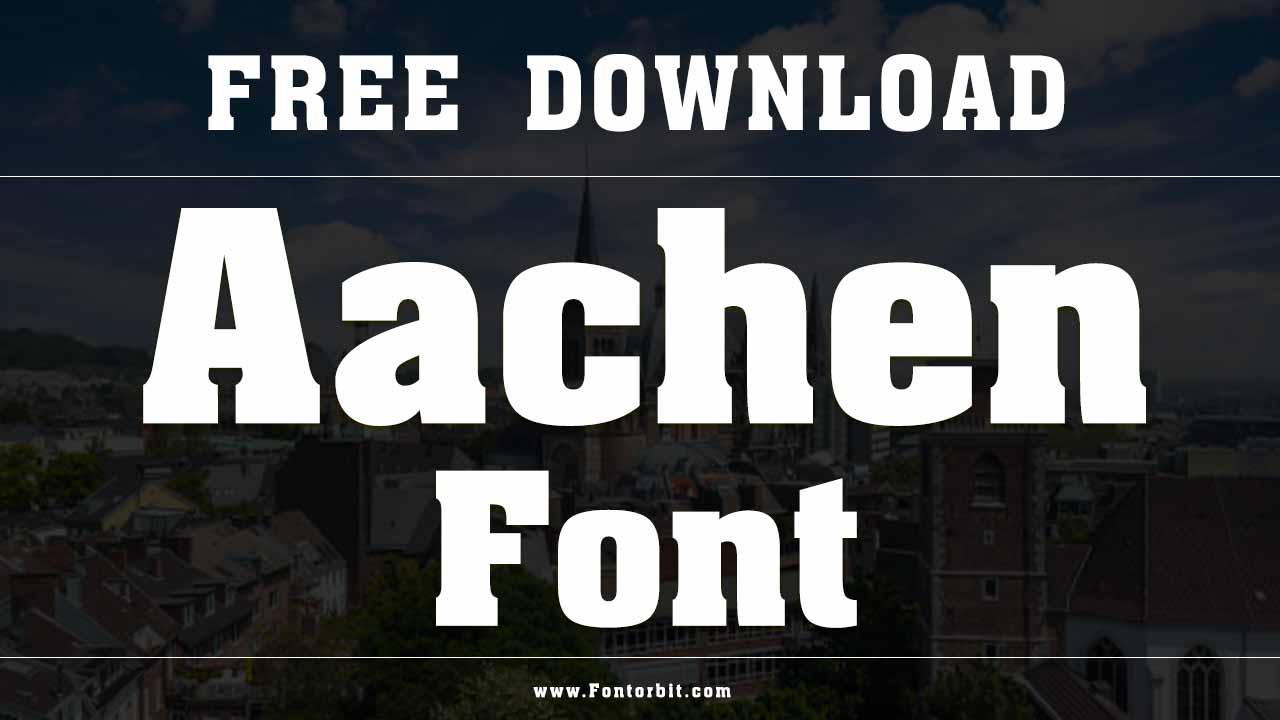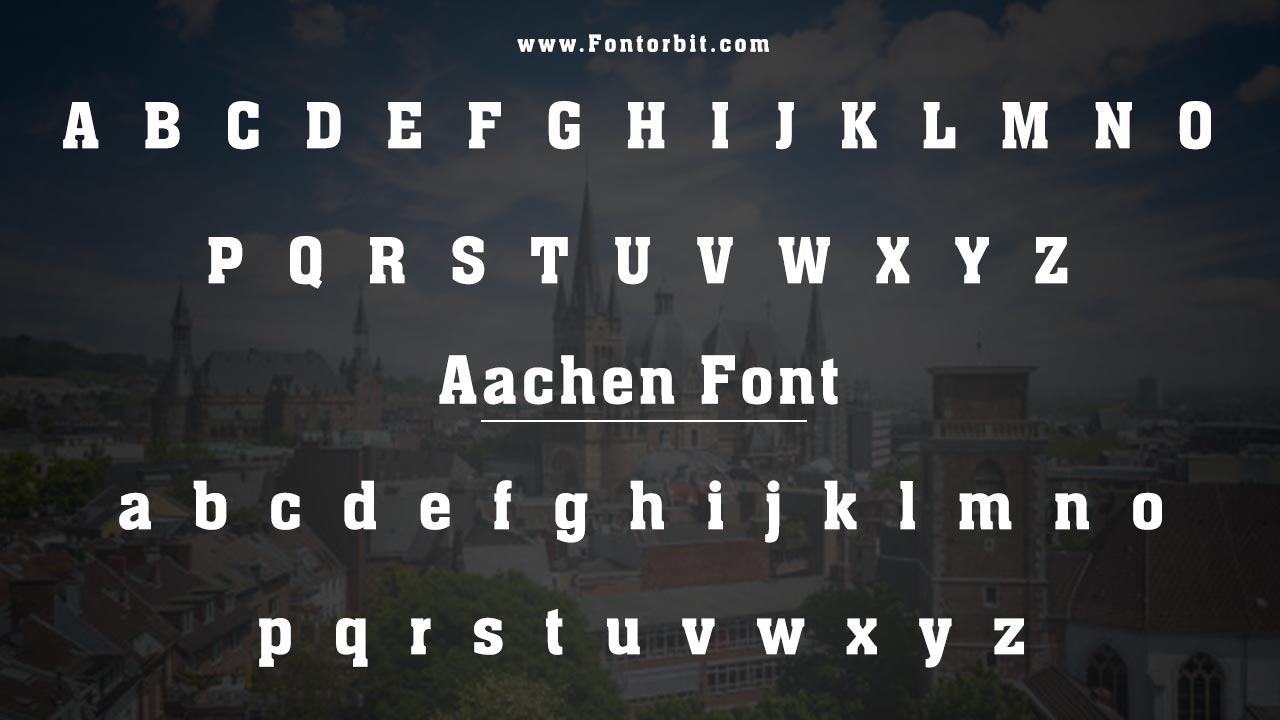
Colin Brignall and Alan Meeks designed the Aachen Font. The International Typeface Corporation (ITC) published it. This strong slab-serif typeface features bold and heavy letterforms. Designers widely use it for headlines, branding, and printed materials.
Aachen Font Family & Styles
Aachen Font comes in two primary styles that give designers flexibility for different projects:
- Aachen Bold
- Aachen Medium
- Neue Aachen (Expanded Version – 18 Styles)
Why Choose Aachen Font?
Aachen Font is perfect for projects that need a powerful visual impact. Its key features include:
- Strong slab-serif style for high visibility
- Great for commercial use like banners, posters, and logos
Where Can You Use Aachen Font?
Aachen Font comes in two main weights: Aachen Medium and Aachen Bold. It is a slab-serif typeface. It has strong, impactful letterforms. Aachen Font works well across various mediums:
- Posters & Banners – Clear and attention-grabbing typography
- Logos & Branding – Perfect for making a bold statement
- Headlines & Captions – Ideal for news, advertising, and sports themes
- Website Design – Suitable for digital branding and web typography
- Product Packaging – Works great for labels and branding elements
Similar & Related Fonts
If you love Aachen Font, check out these similar typefaces:
- TR Bach Font – A strong alternative with a slab-serif style
- Rockwell – Classic slab serif with a vintage feel
- Serifa – A structured and elegant slab-serif typeface
- Memphis – Another bold slab-serif that complements Aachen
Websites like Behance, Dribbble, and Pinterest showcase creative uses of the Aachen font in branding, sports graphics, and advertising. Fonts In Use is another great resource for real-world applications of Aachen in various design projects.
2.Who Designed Aachen Font?
Colin Brignall & Alan Meeks designed it for ITC.
3.What Are The Best Font Pairings For Aachen?
Works well with Helvetica, Montserrat, and Roboto.
5.What Are Some Alternatives To Aachen Font?
TR Bach Font, Rockwell, and Memphis are great choices.
6.What Are The Characteristics Of The Aachen Font?
Aachen is a bold slab-serif font with thick strokes, strong letterforms, and a solid, authoritative presence. It is designed for high-impact typography, making it perfect for sports, advertising, and branding projects.
8.What Are The Best Pairings For The Aachen Font?
Aachen pairs well with sans-serif fonts like Helvetica, Futura, and Montserrat for a modern, balanced look. It also works with script fonts for a bold yet stylish contrast in branding and advertising.